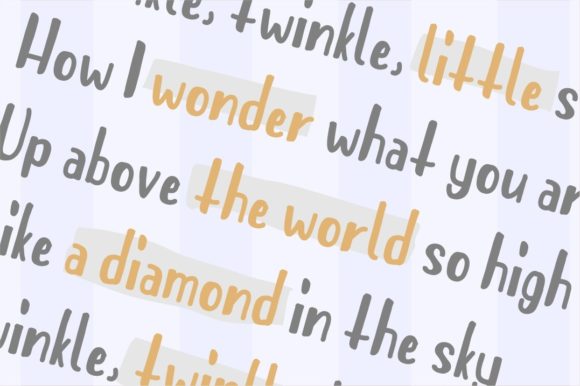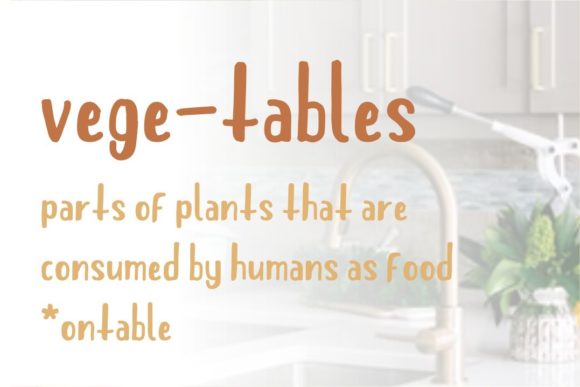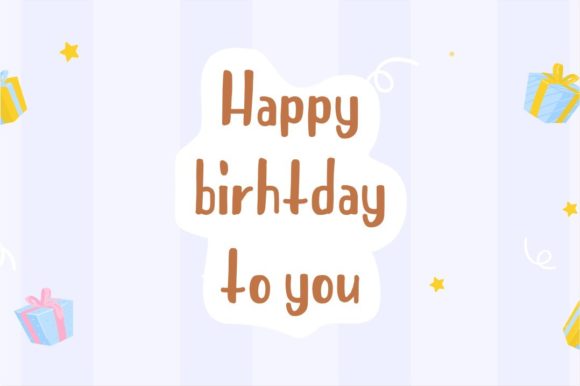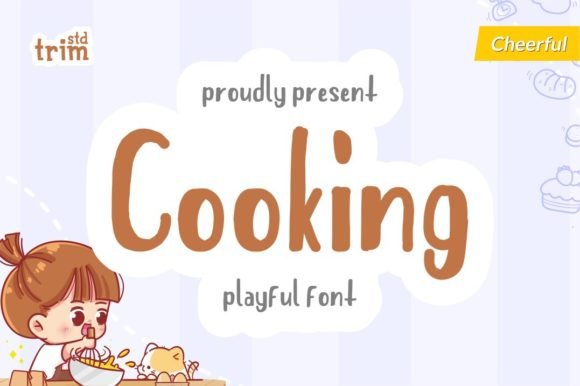
Introduction to Cooking Font
Cooking is a cute and playful display font.
It is perfect for any branding project such as logos, t-shirt printing, creative products, and more .